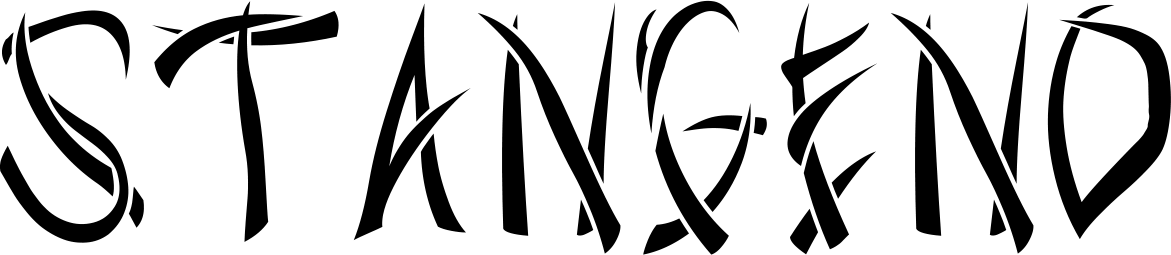
StangenD Font
StangenD is a tribal font that is ethnical, raw, natural, and bold. It represents Asianness and gives off traditional vibes. Want to add a touch of ethnicity, and tradition to your project? Then, you can’t go wrong with…
StangenD is a tribal font that is ethnical, raw, natural, and bold. It represents Asianness and gives off traditional vibes.
Want to add a touch of ethnicity, and tradition to your project? Then, you can’t go wrong with StangenD. You can use it in historical fiction movies, books, posters, apparel design and game graphics!